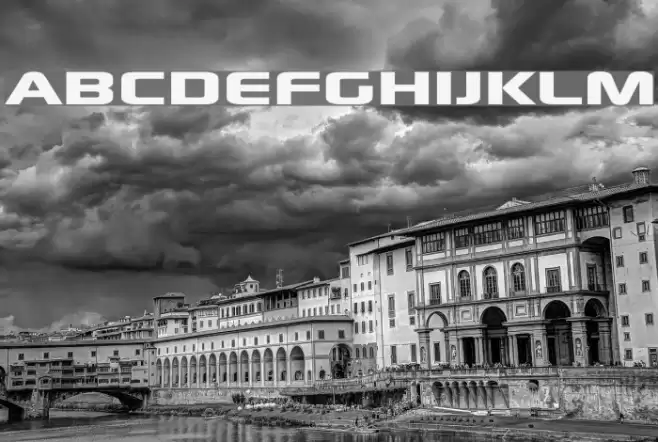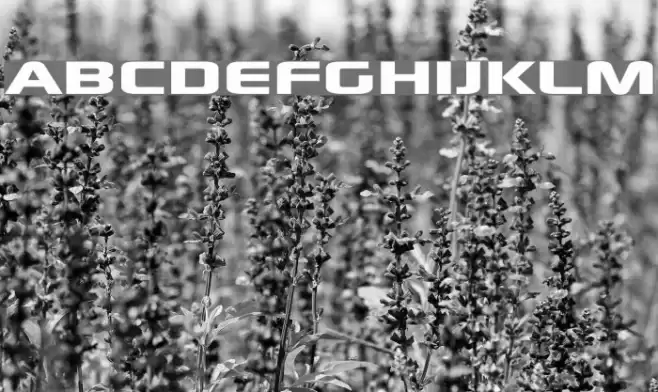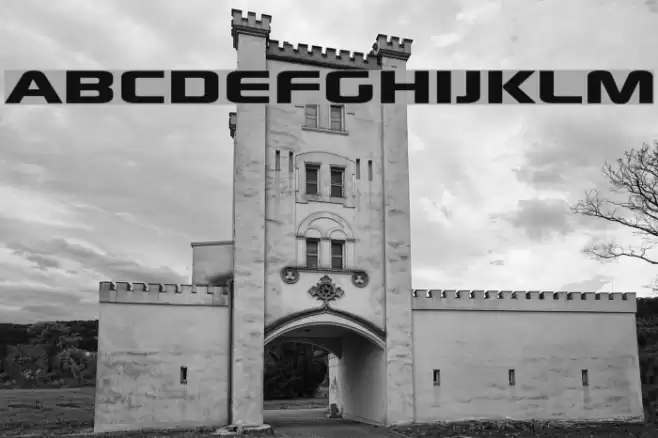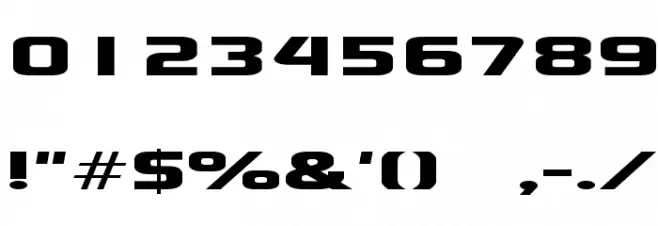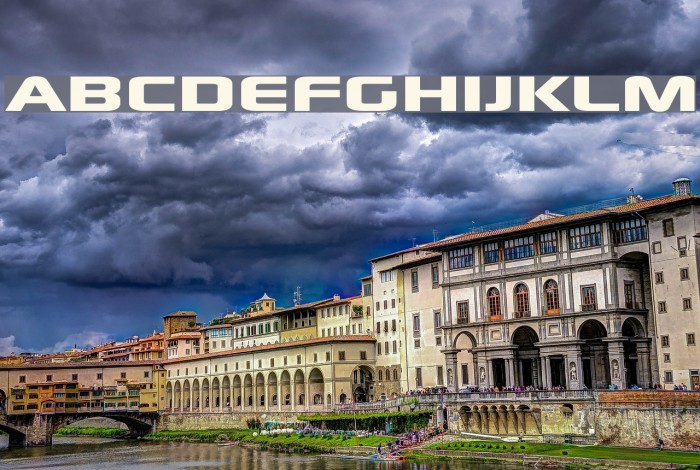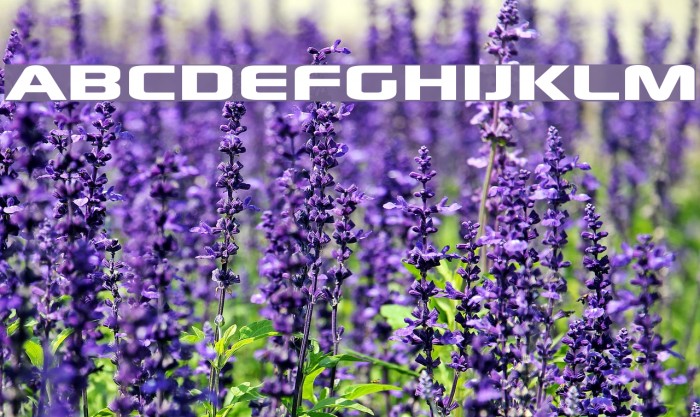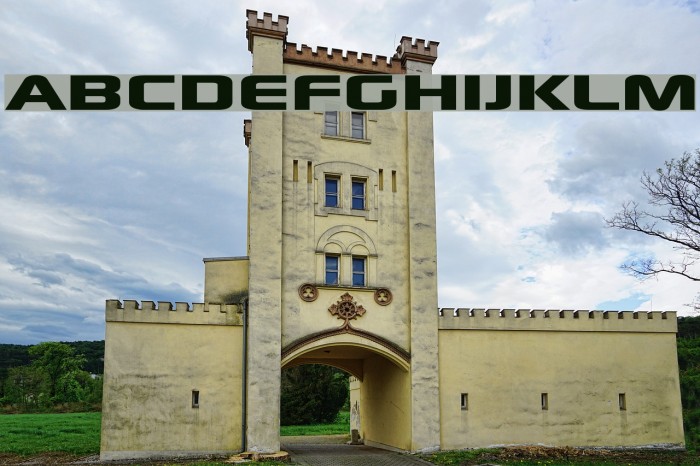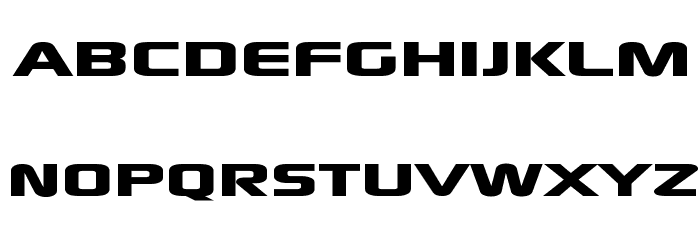
xscale Font
xscale Description
This font features a bold and modern design with a strong geometric influence. The characters are wide and have a slightly condensed appearance, giving them a robust and impactful look. The strokes are consistent in width, providing a uniform and clean aesthetic. The uppercase letters are particularly striking, with sharp angles and a futuristic feel. The numerals and special characters maintain the same boldness and clarity, making them easily legible. This font is ideal for projects that require a contemporary and assertive typeface.
A bold, modern font with geometric influences and a strong, impactful design from Sci-fi fonts.
- Proposed Projects: Ideal for branding, headlines, posters, and any design requiring a modern and bold typeface.